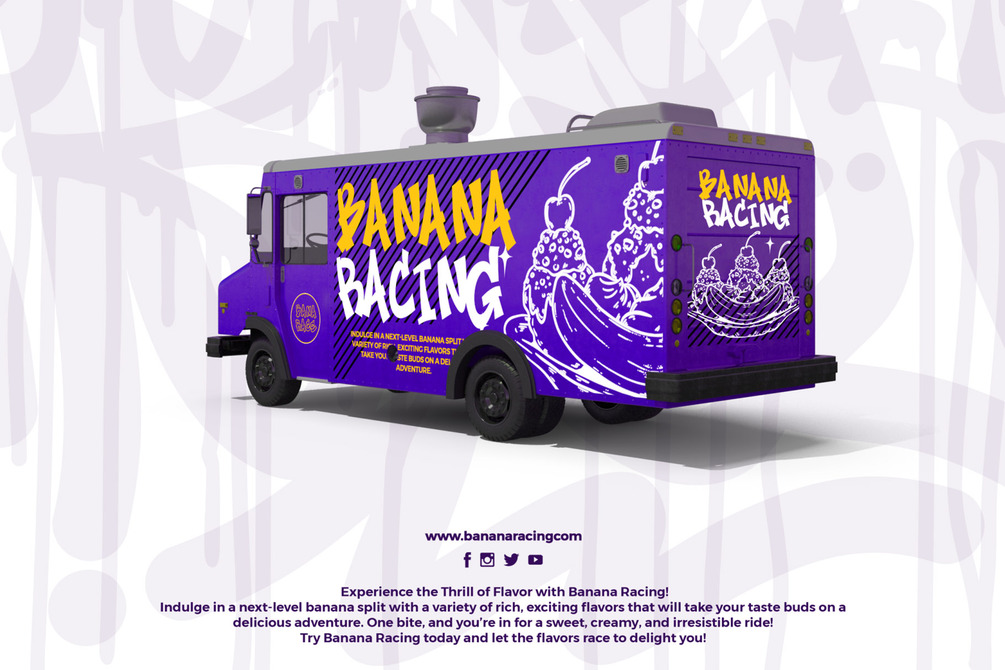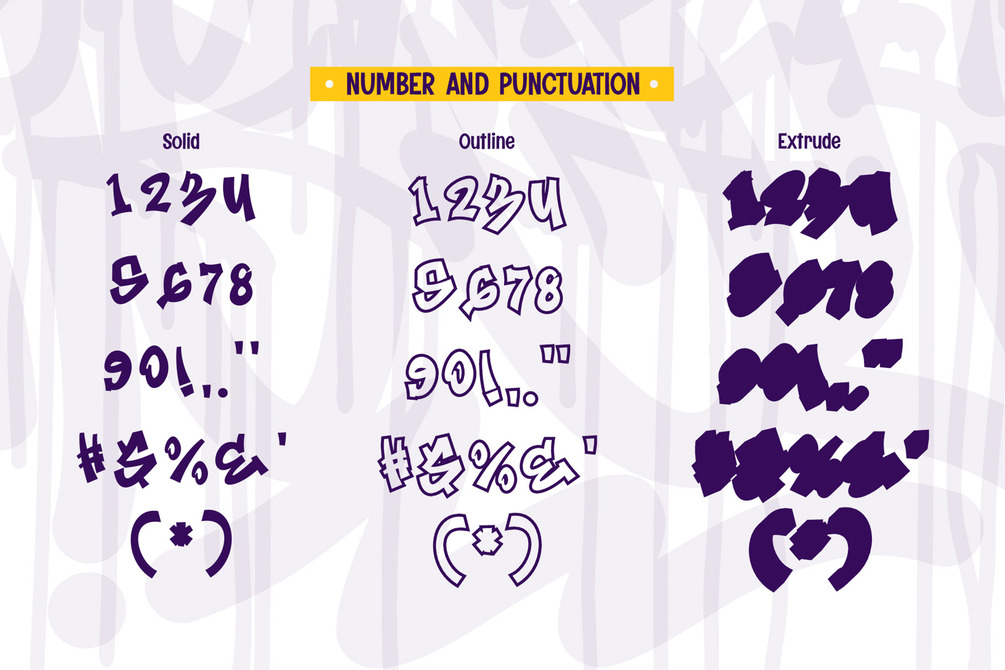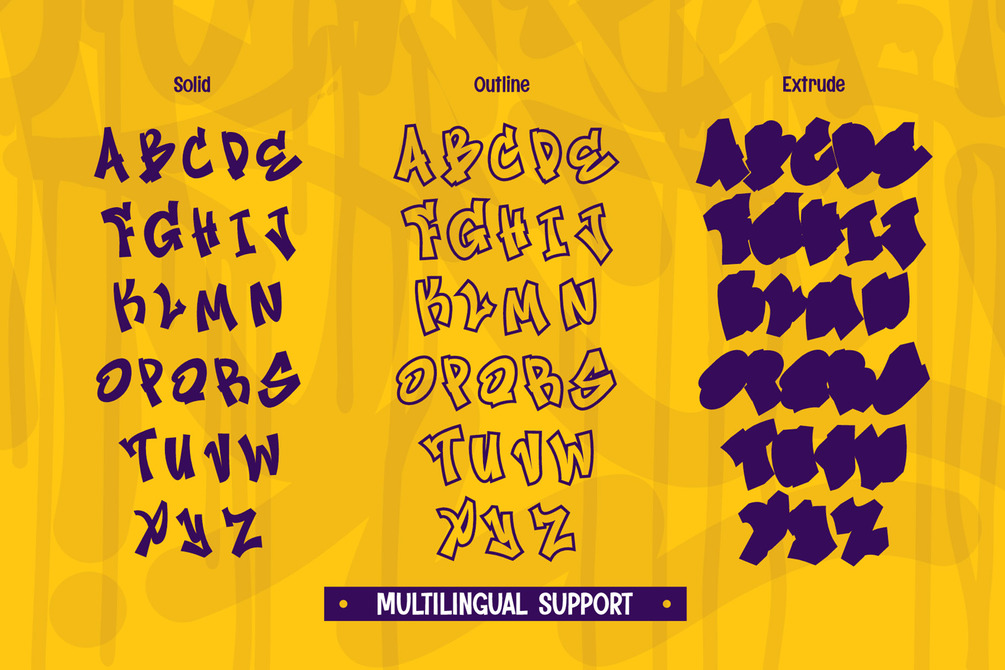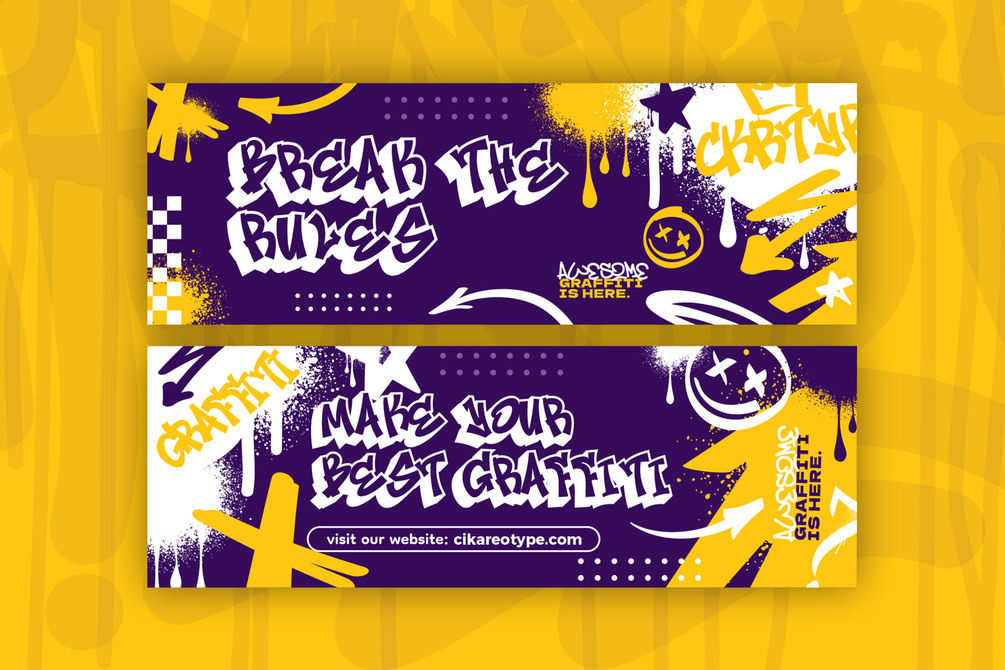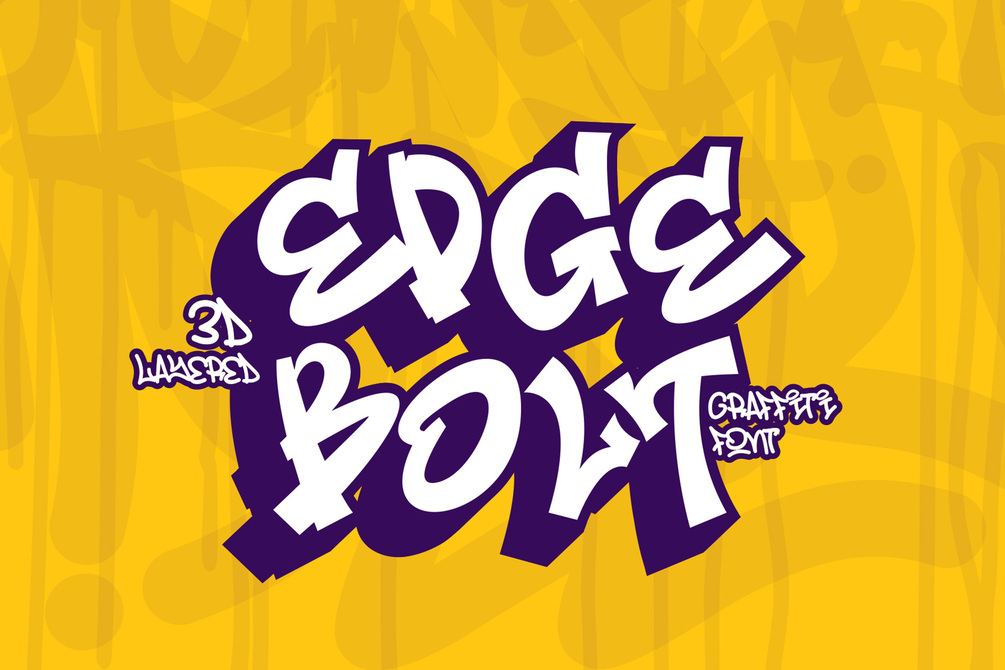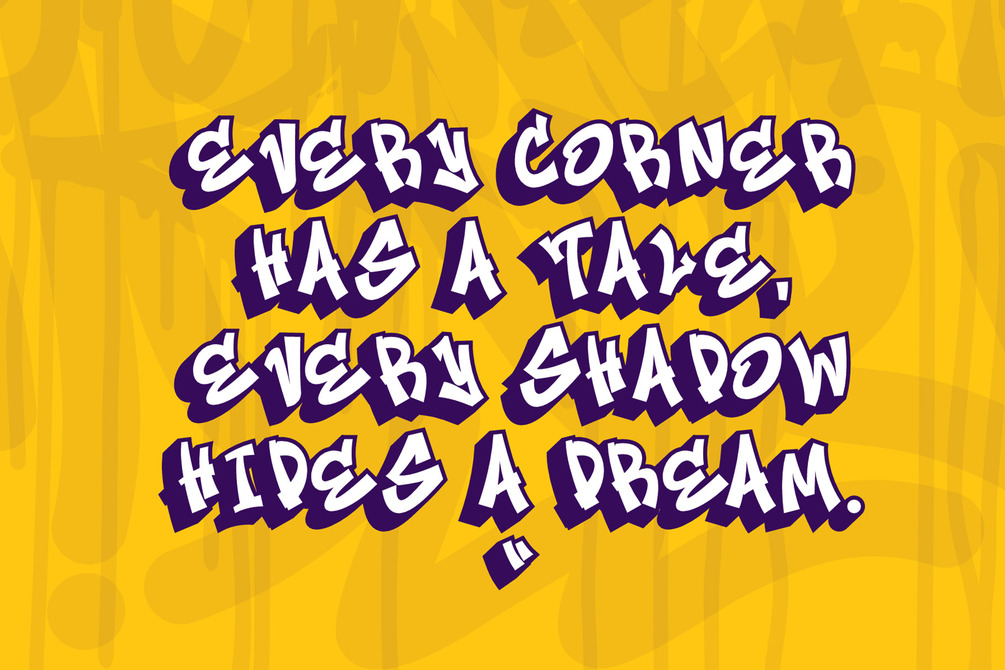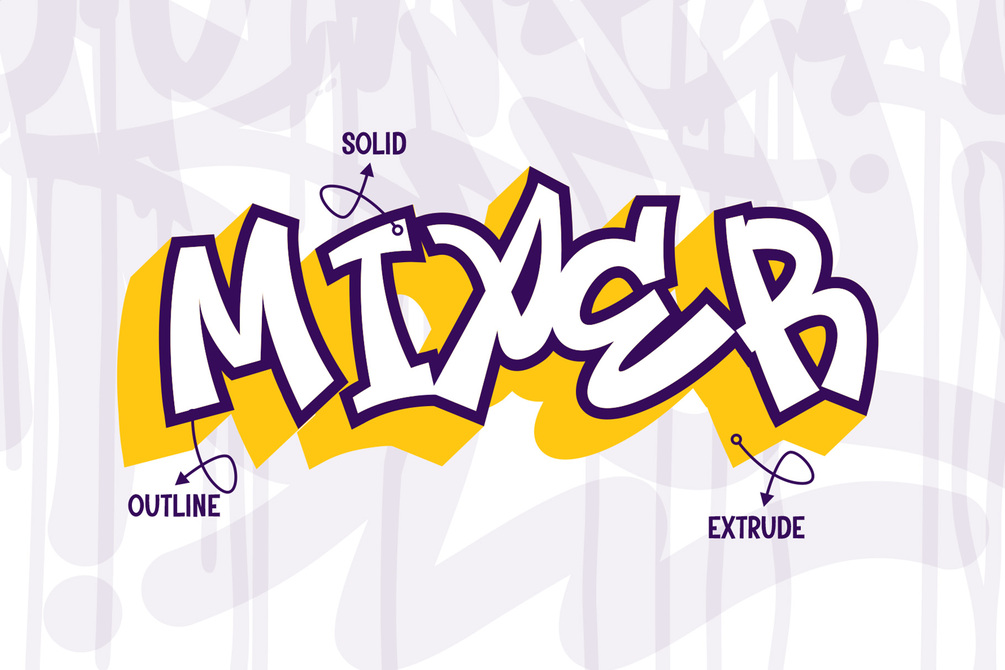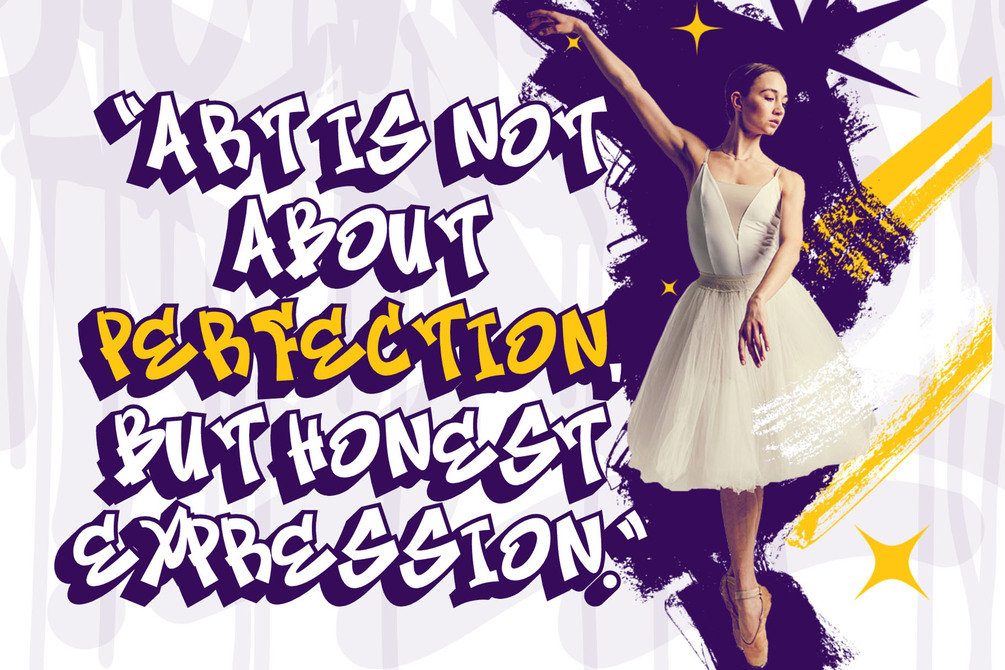
Edge Bolt is a bold and dynamic 3D layered graffiti font featuring sharp and thin characters that bring an electrifying street-style aesthetic to your designs. This font comes with three distinct layers—Solid, Outline, and Extrude—allowing you to create eye-catching depth and dimension effortlessly. Whether you're designing for streetwear branding, posters, digital artwork, or urban-themed projects, Edge Bolt delivers a striking and edgy look. With its layered versatility, this font makes it easy to mix and match styles for a unique, high-impact visual experience.
Features
• Multilingual Support
• Versatile for branding, headline, or printing product
• Swash
Unleash your creativity with Edge Bolt! 💥 Make your designs pop with powerful graffiti vibes and bold 3D layers. Grab it now and bring urban flair to your next project!